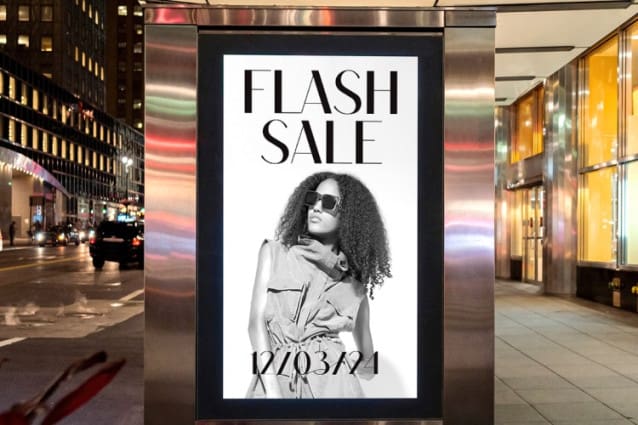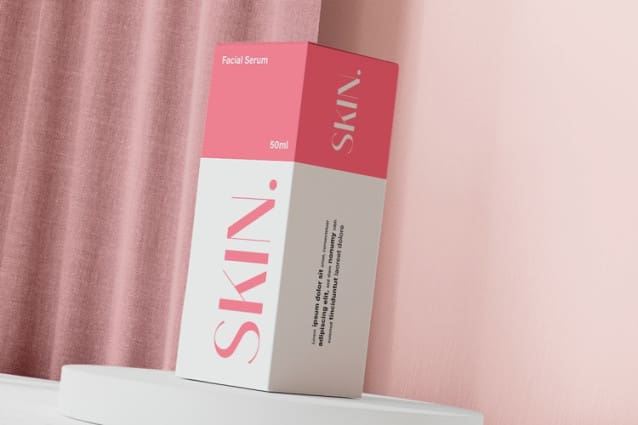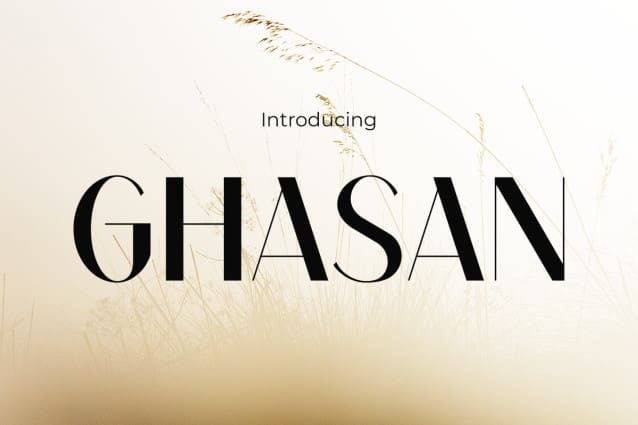
Ghasan Font
Ghasan Font is a captivating display font that commands attention with its bold presence and distinctive style. Designed to make a statement, this font delivers a perfect balance of elegance and impact, making it ideal for headlines, logos, posters, and other eye-catching design projects. With its unique character shapes and carefully crafted details, GHASANFont adds a touch of sophistication and flair to any creative endeavor, ensuring that your message stands out with confidence and authority.
With GHASAN Font, your designs will exude personality and charm, thanks to its versatile nature and striking appearance. Whether you’re crafting branding materials, event invitations, or advertising banners, this font offers limitless possibilities for creative expression. Elevate your projects to new heights with GHASANFont, where every word becomes a work of art in its own right, leaving a lasting impression on your audience.